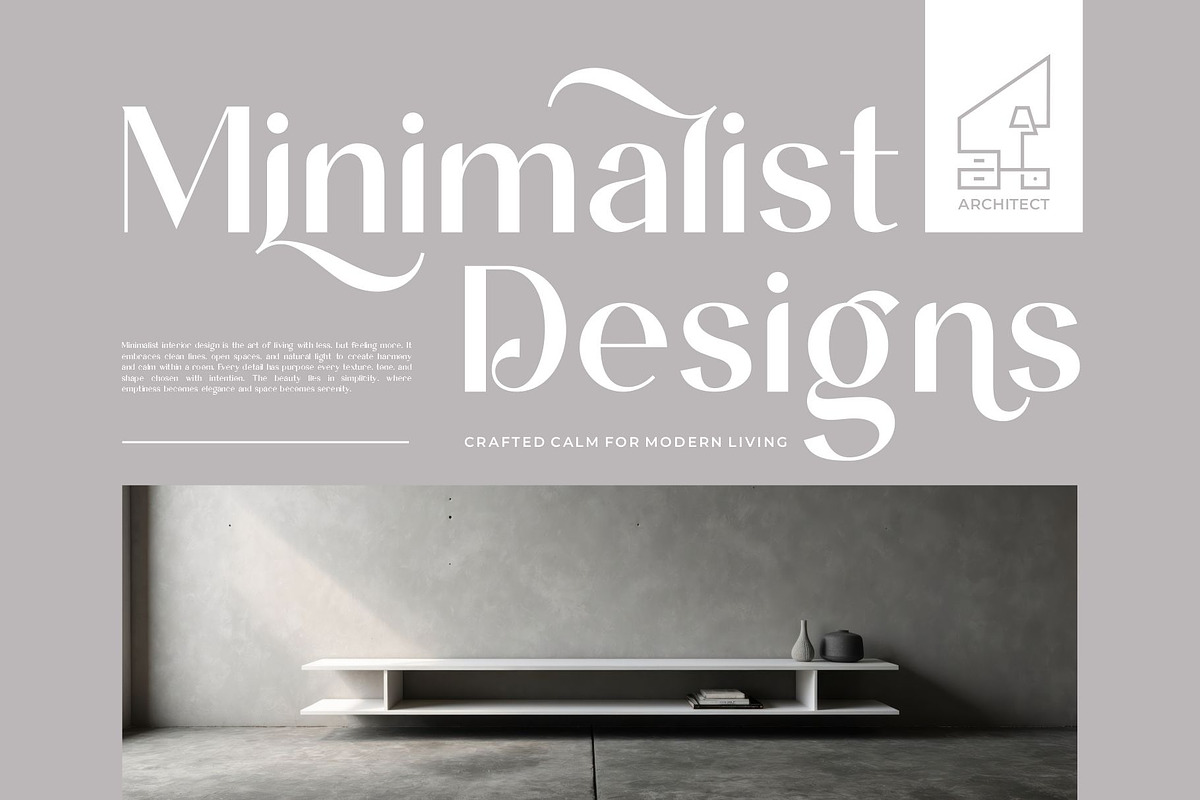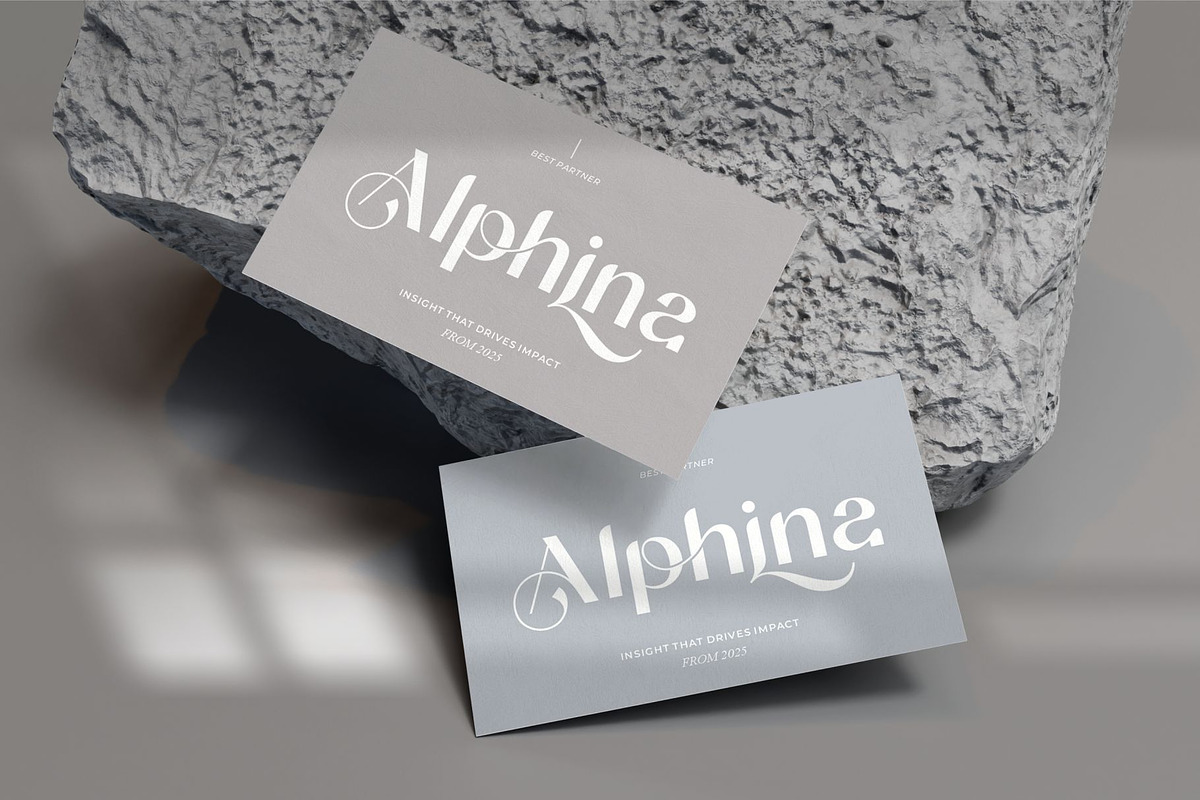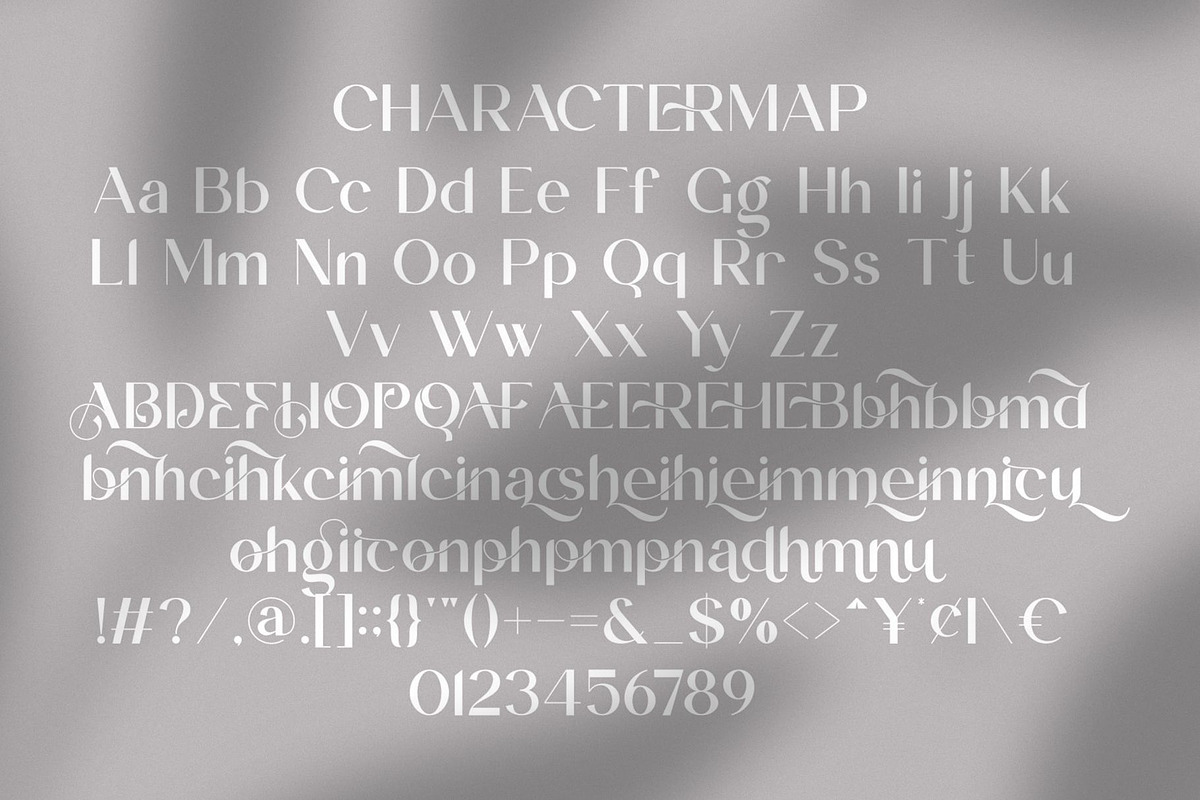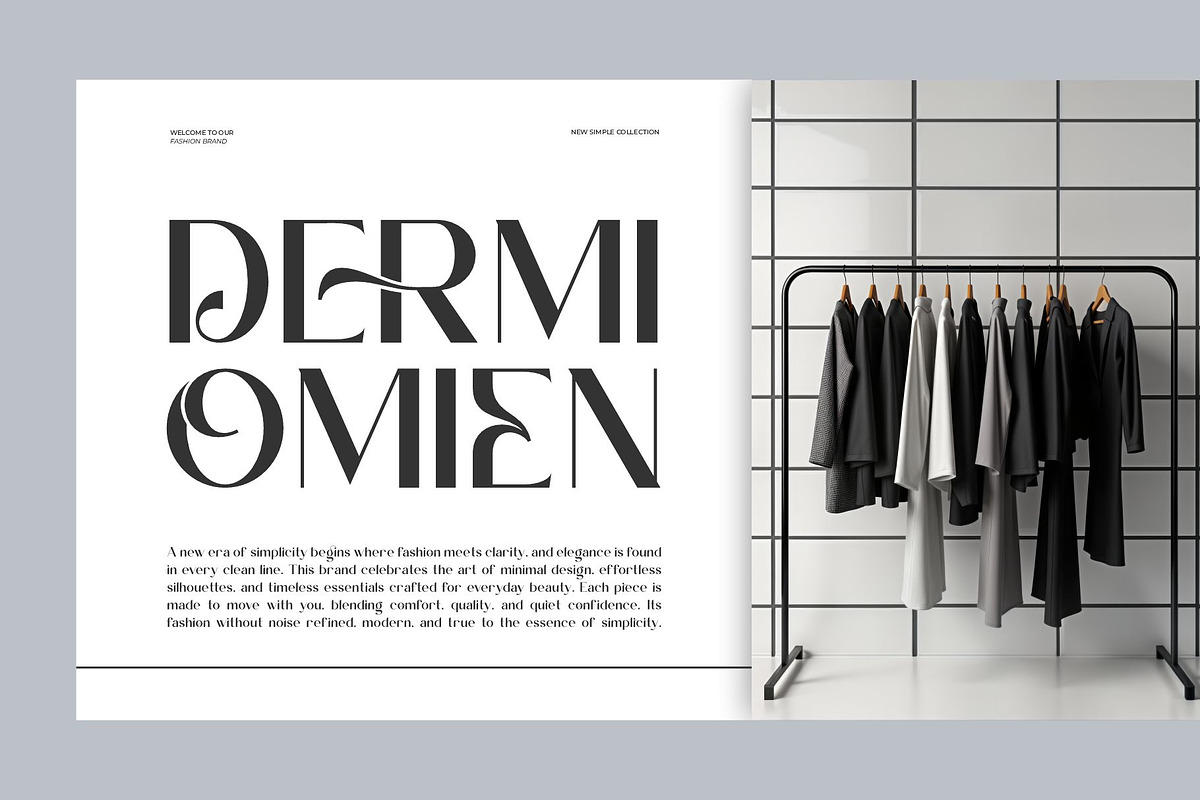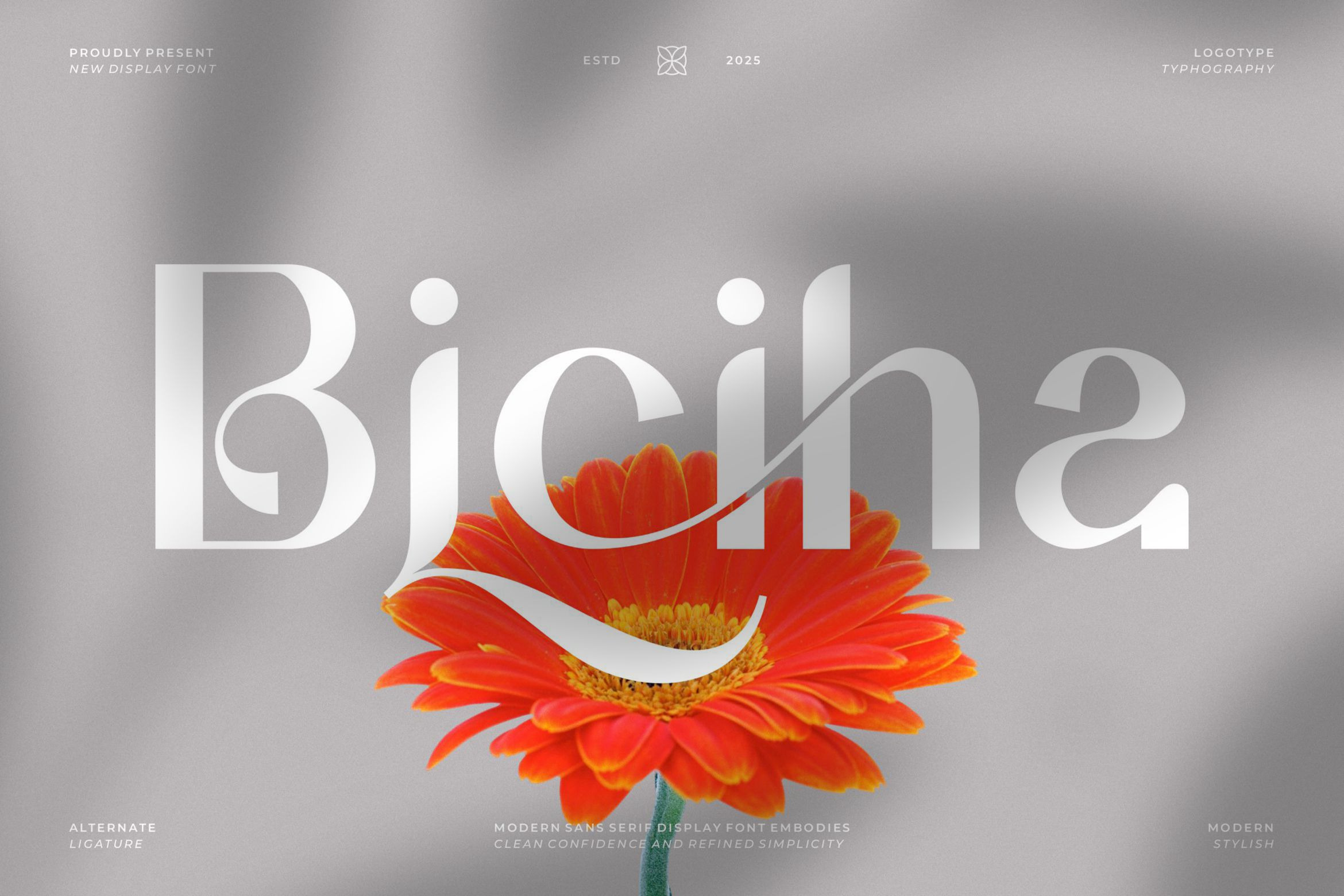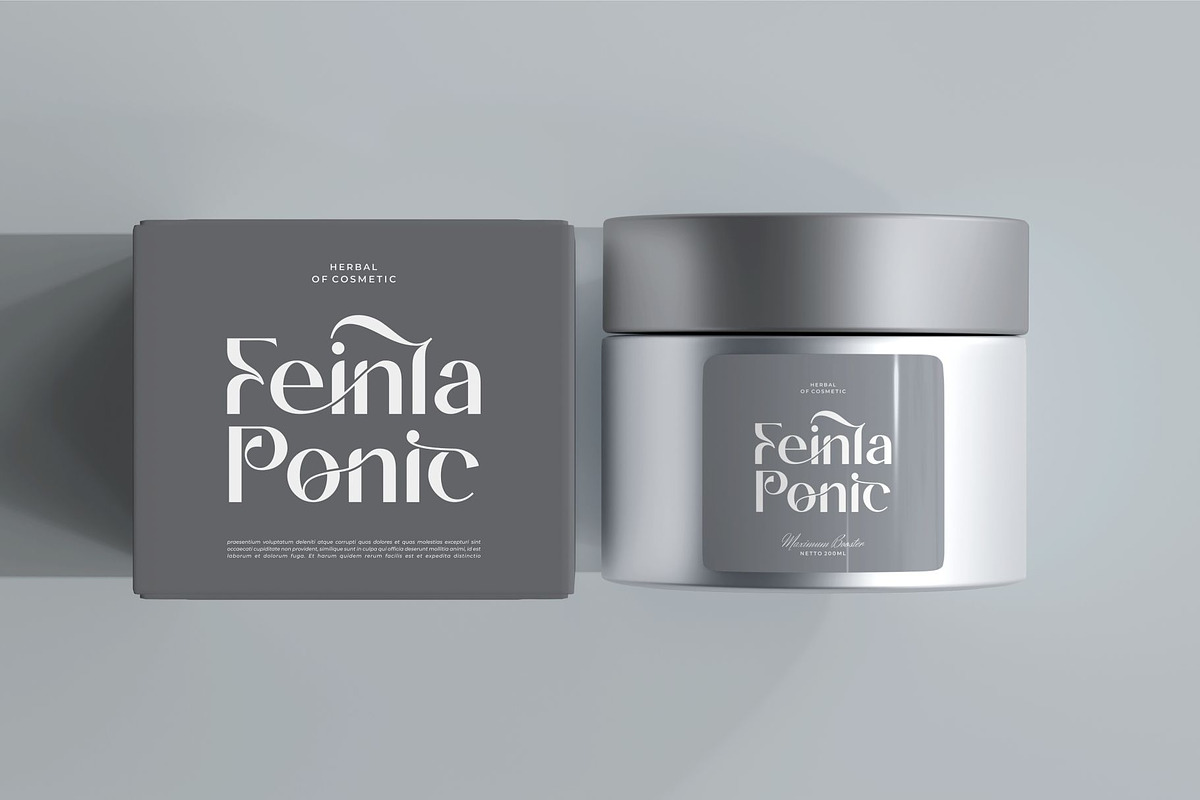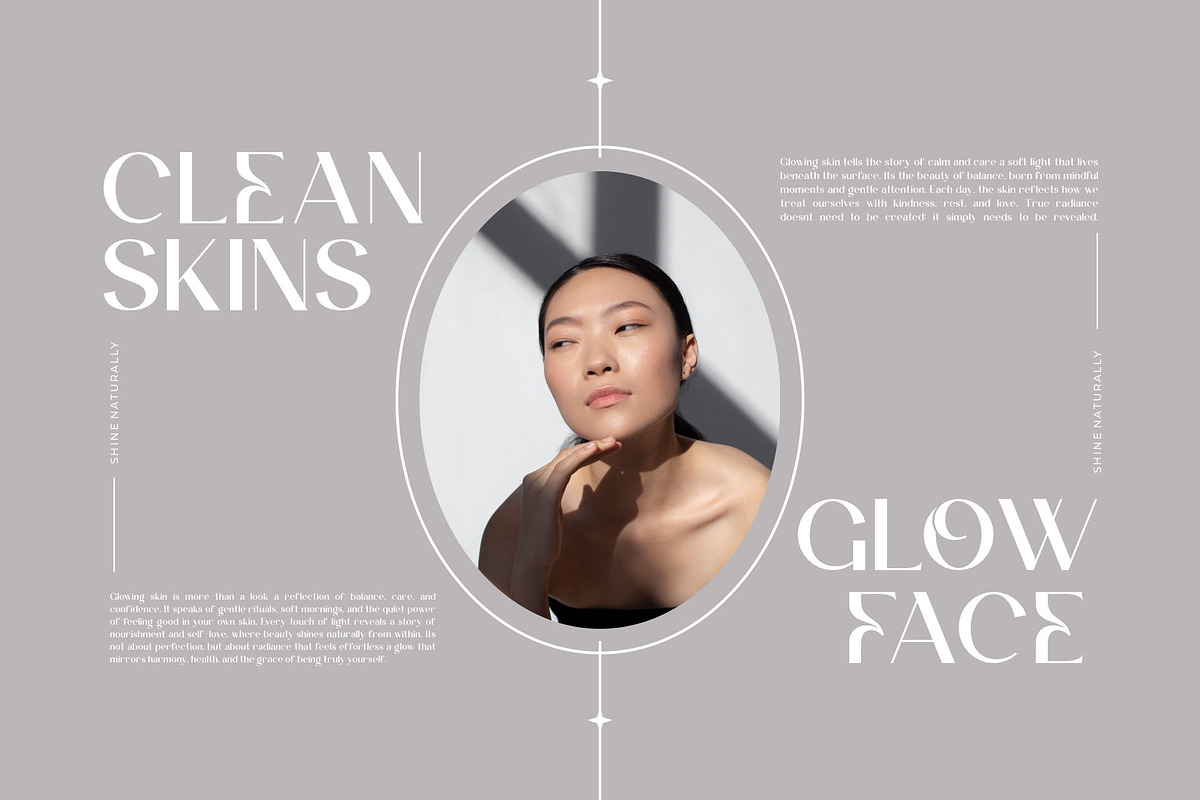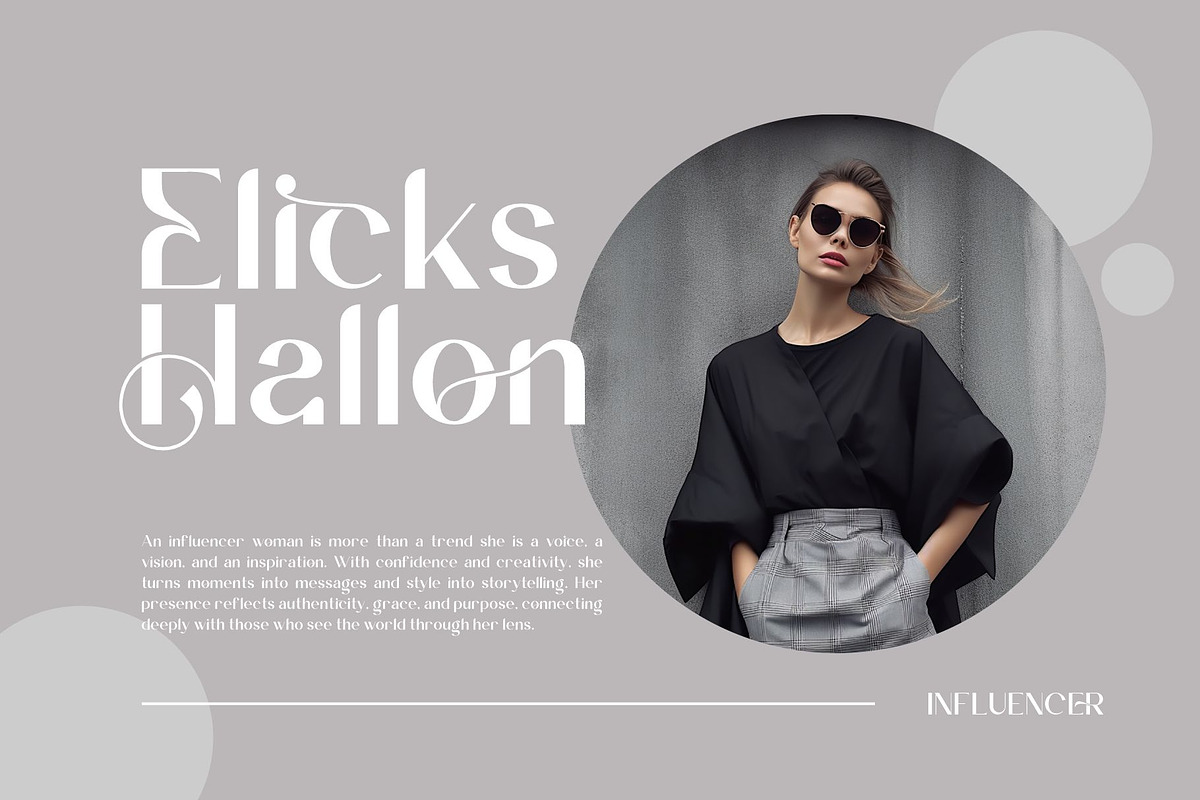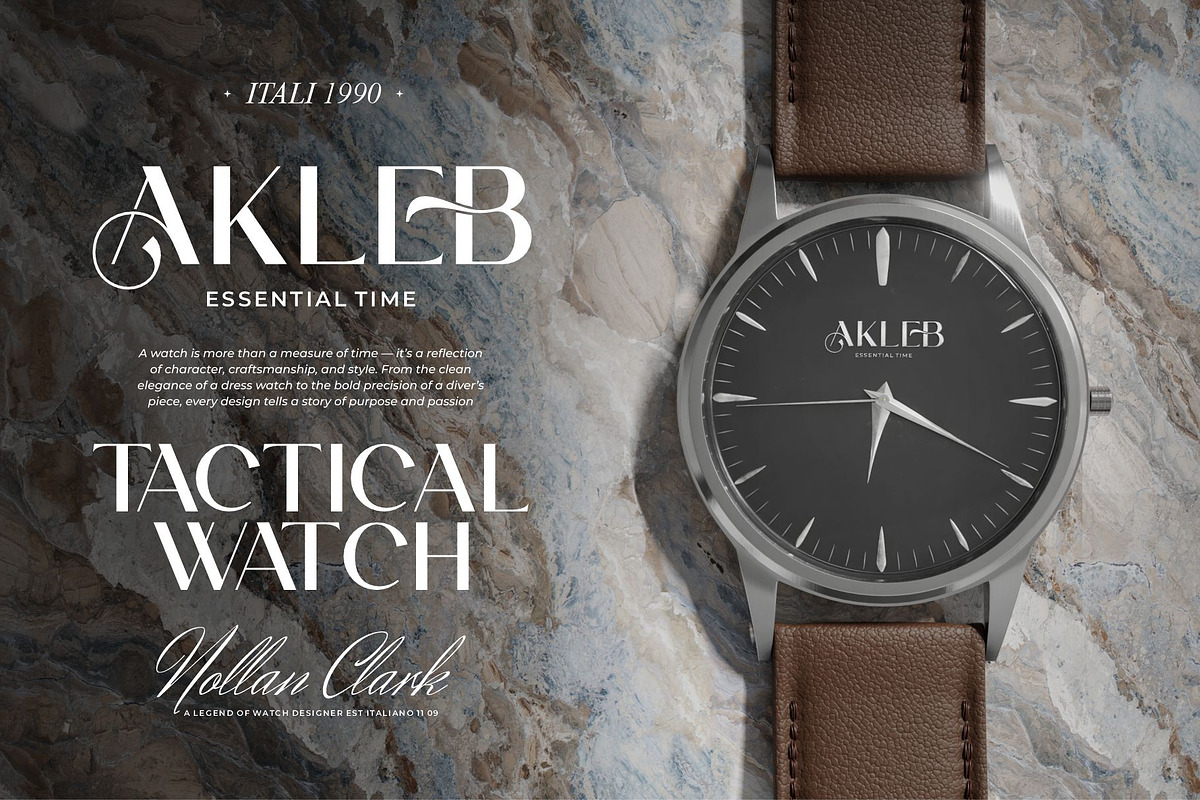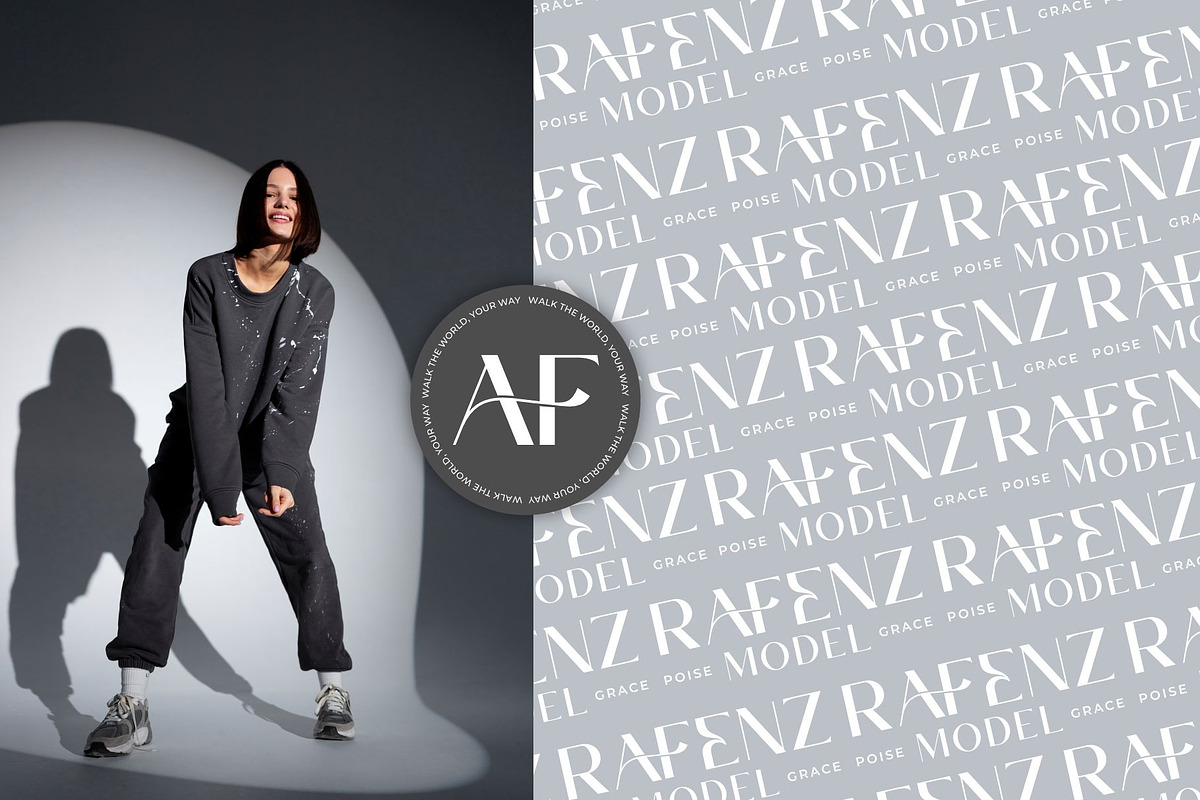
Biciha || Minimalist Sans Serif Font
Biciha Sans Serif is a modern and minimalist font type for all branding and logo designs. This modern and minimalist Serif font has a beautiful character. This font is suitable for invitation card designs, cool logos, movie titles, movie names, business cards, book titles, brand names, and various other designs. Biciha Sans Serif is a smooth sans serif font that exudes sophistication and the moment. Its stylish alternates and ligatures make this font a perfect partner for any project.
- Ligature & Alternate